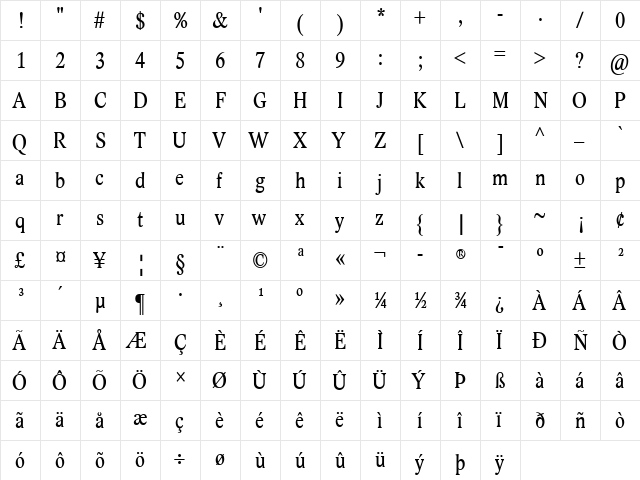
Lido STF Cond Regular
Design Context for Lido STF Cond Typeface
Lido STF Cond is a composed and adaptable typeface that performs quietly and consistently across a wide range of design contexts. Its narrow stance lets it pack a punch even in space-constrained designs.